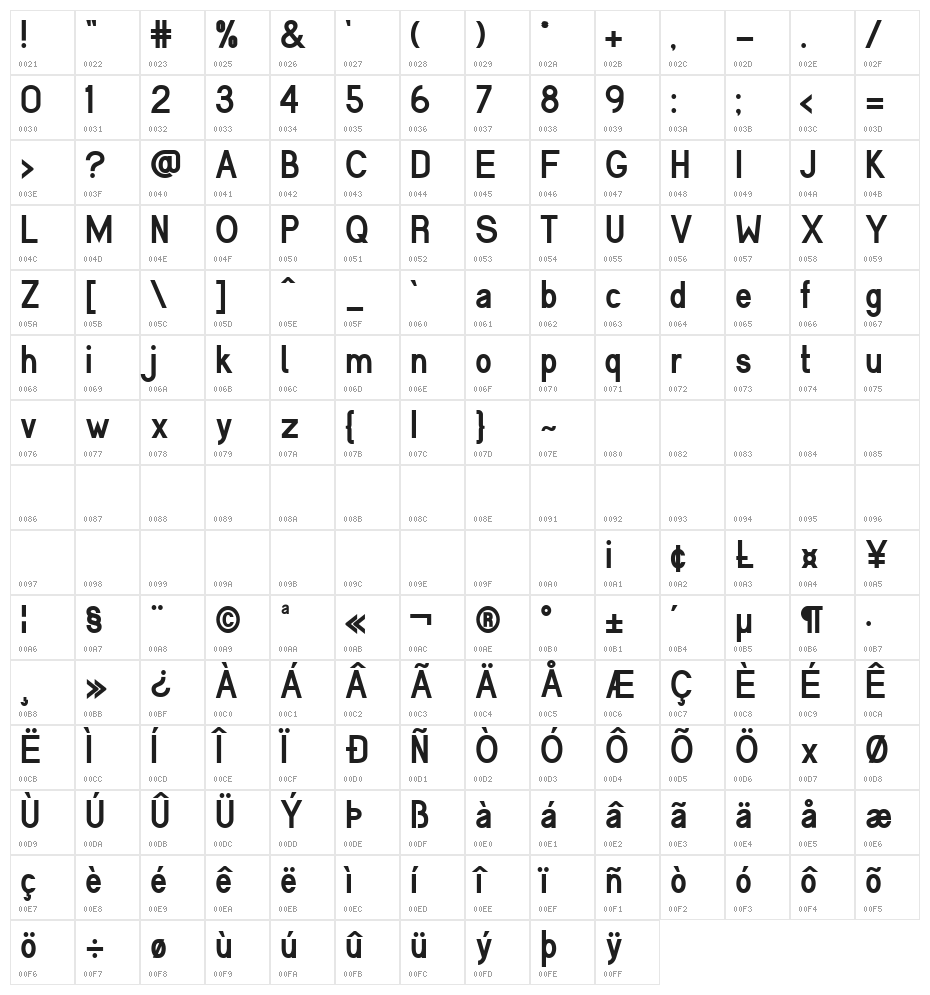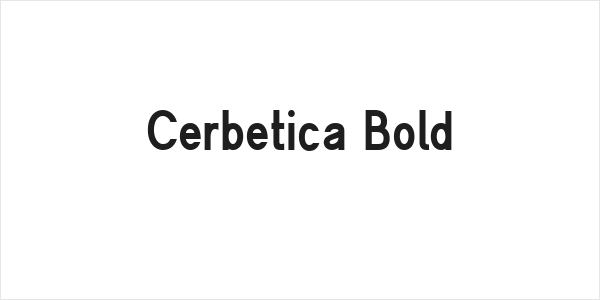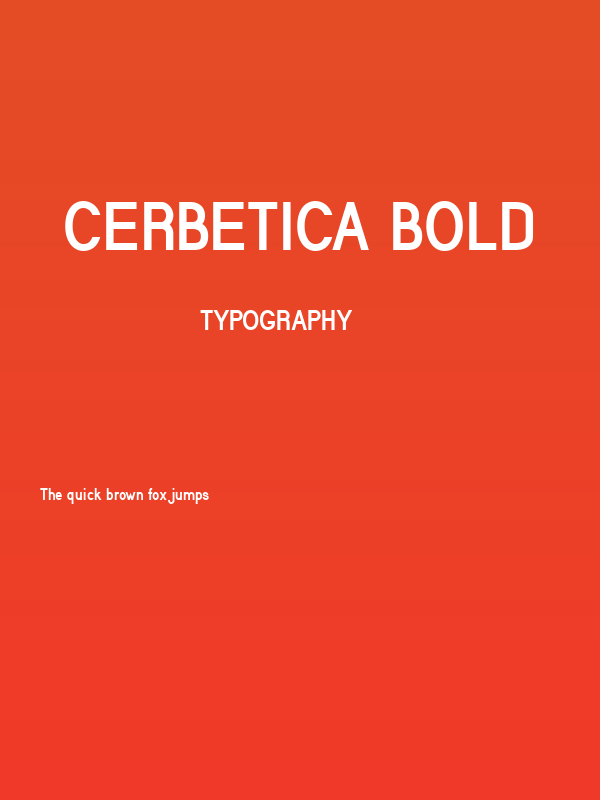
Cerbetica Bold Font
Cerbetica Bold Description
This font features a bold and clean sans-serif style, characterized by its strong geometric shapes and uniform stroke widths. The uppercase and lowercase letters maintain a consistent height and width, providing a balanced and modern appearance. The numerals are clear and easily distinguishable, making them suitable for a variety of applications. The special characters are well-defined, adding versatility to the font's usage. Its simplicity and clarity make it ideal for both digital and print media, ensuring readability across different sizes and formats.
| Proposed Projects | Ideal for branding, advertising, web design, and editorial layouts due to its clarity and modern appeal. |